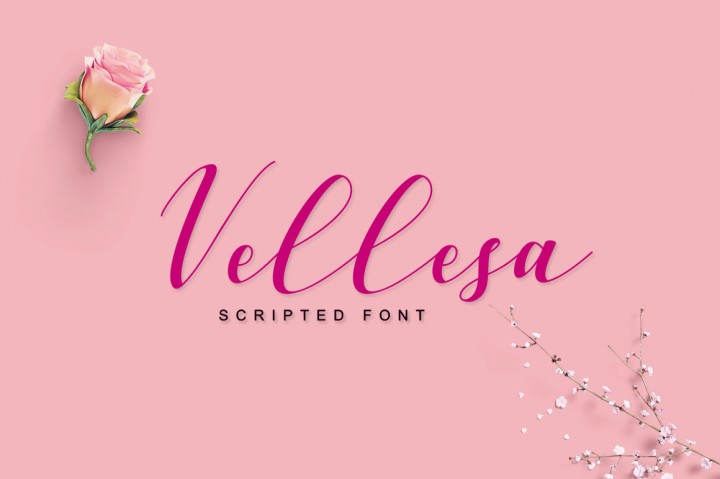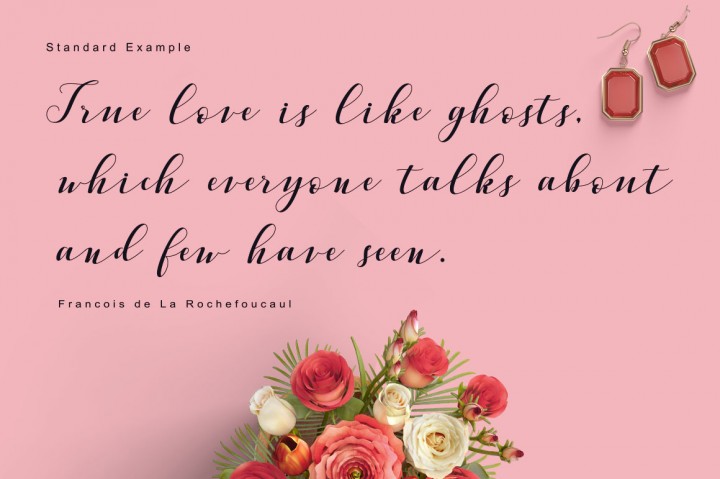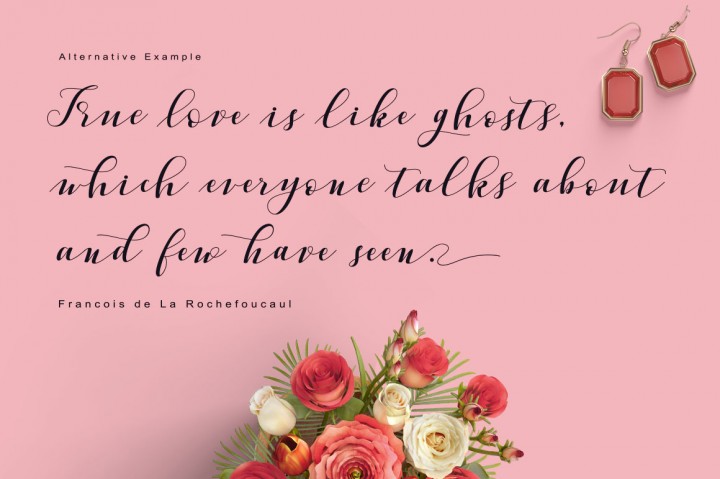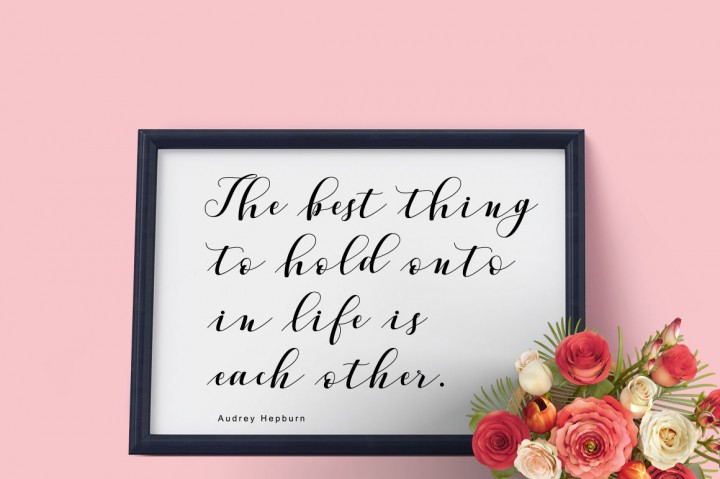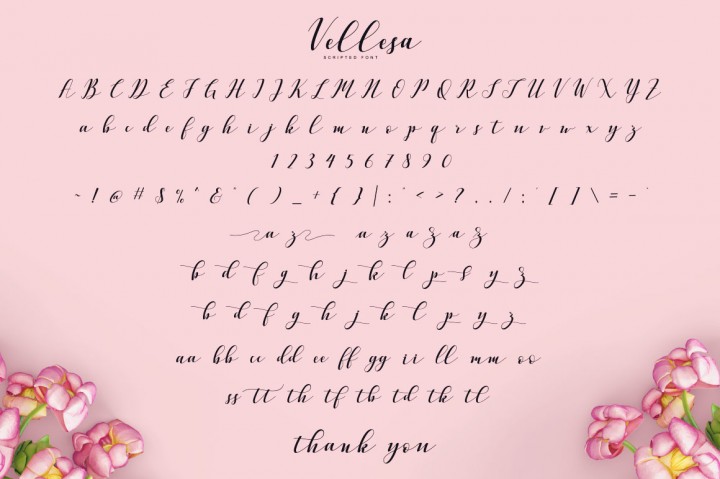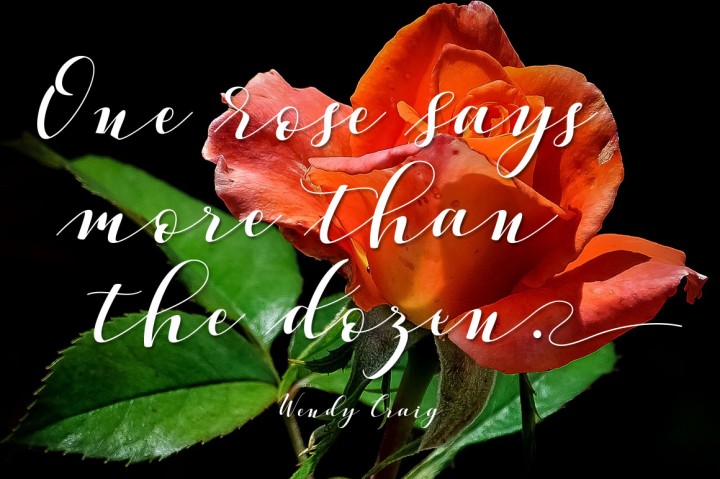
Vellesa Script Font
About Vellesa Script Font
Vellesa is an elegant handmade font.
The Valessa Script font has a classic calligraphy style and works well for many types of designs such as invites or signs.